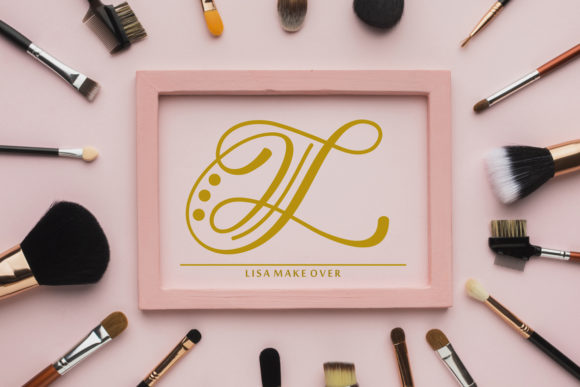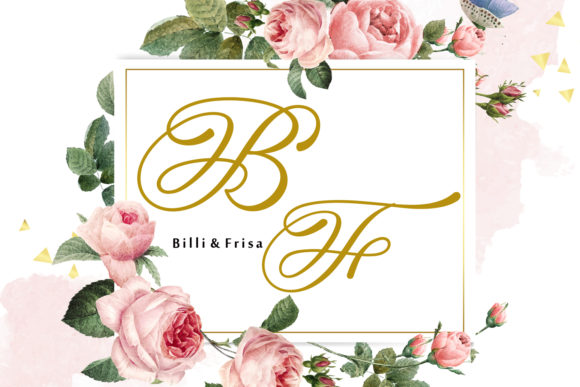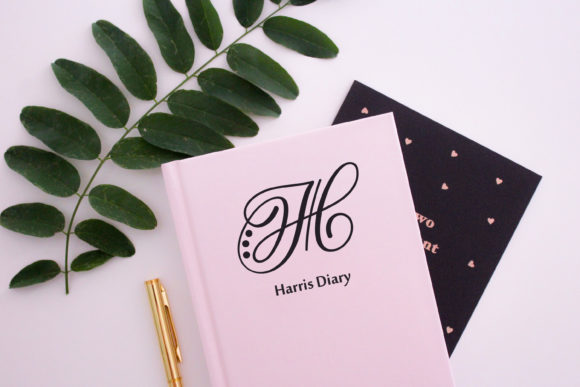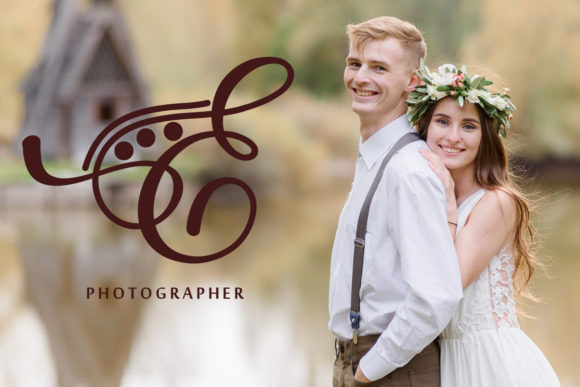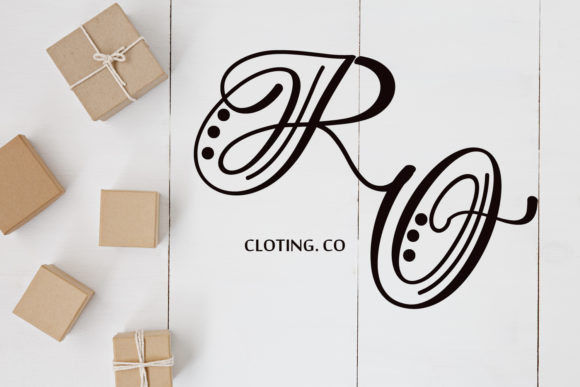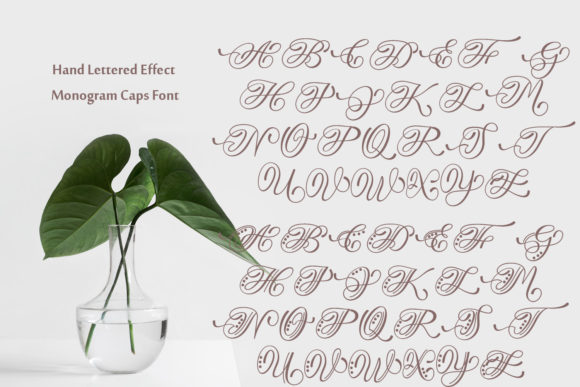
Introducing Hand Lettered Effect Monogram Font: Elevate Your Wedding Projects with Elegance
Are you a designer or crafter looking for the perfect font to add a touch of romance and sophistication to your wedding-themed projects? Look no further than the Hand Lettered Effect Monogram Font. This beautiful script font features romantic characters that make it ideal for creating stunning wedding invitations, decorations, and more.
What is Hand Lettered Effect Monogram Font?
Hand Lettered Effect Monogram Font is a unique and elegant script font that mimics the look of hand-lettered monograms. Its romantic and whimsical feel makes it perfect for wedding-themed projects, such as invitations, save-the-dates, and decorations. The font features intricate details and flourishes that give it a personal and handmade touch.
Key Features of Hand Lettered Effect Monogram Font
- Romantic Characters: The font features romantic characters that are perfect for wedding-themed projects.
- Hand-Drawn Details: The font has intricate, hand-drawn details that give it a personal and unique touch.
- Elegant and Sophisticated: The font has an elegant and sophisticated feel that makes it perfect for high-end wedding projects.
Why Choose Hand Lettered Effect Monogram Font?
There are many reasons why designers and crafters choose Hand Lettered Effect Monogram Font for their wedding projects. Here are a few:
- Unique and Exclusive: The font is unique and exclusive, making it a great choice for designers and crafters who want to stand out from the crowd.
- High-Quality: The font is of high-quality, making it perfect for printing and digital use.
- Versatile: The font is versatile and can be used for a variety of wedding-themed projects, from invitations to decorations.
- Easy to Customize: The font is easy to customize, making it perfect for designers and crafters who want to add their own personal touch.
How to Use Hand Lettered Effect Monogram Font
Tips and Tricks for Using Hand Lettered Effect Monogram Font
Here are a few tips and tricks for using Hand Lettered Effect Monogram Font:
- Use it with Other Fonts: Use the font with other fonts to create a unique and interesting combination.
- Add Flourishes: Add flourishes and other decorative elements to give your project a personal touch.
- Experiment with Colors: Experiment with different colors to find the perfect match for your project.
| Font Name | Hand Lettered Effect Monogram Font |
| Author | Amanda_Design |
Hand Lettered Effect Monogram Font is a beautiful and elegant script font that is perfect for wedding-themed projects. Its romantic characters and hand-drawn details make it a great choice for designers and crafters who want to add a touch of sophistication and elegance to their work. With its ease of use and versatility, it’s a font that you’ll love working with.